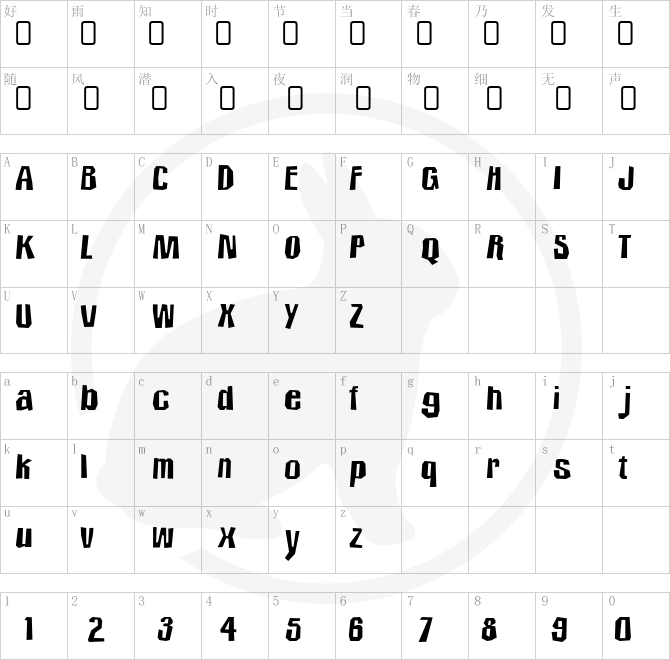
- Font Name:Icicle Country Two
IcicleCountryTwo-Regular-copy-1-.ttf is a very beautiful artistic font, IcicleCountryTwo-Regular-copy-1-.ttf is widely used in the design and printing of various books and pictures,IcicleCountryTwo-Regular-copy-1-.ttf has a strong visual impact,IcicleCountryTwo-Regular-copy-1-.ttf is a commonly used font in newspapers, magazines and books, and is used in posters, e-commerce Poster design, store design, logo design, font design and other fields.IcicleCountryTwo-Regular-copy-1-.